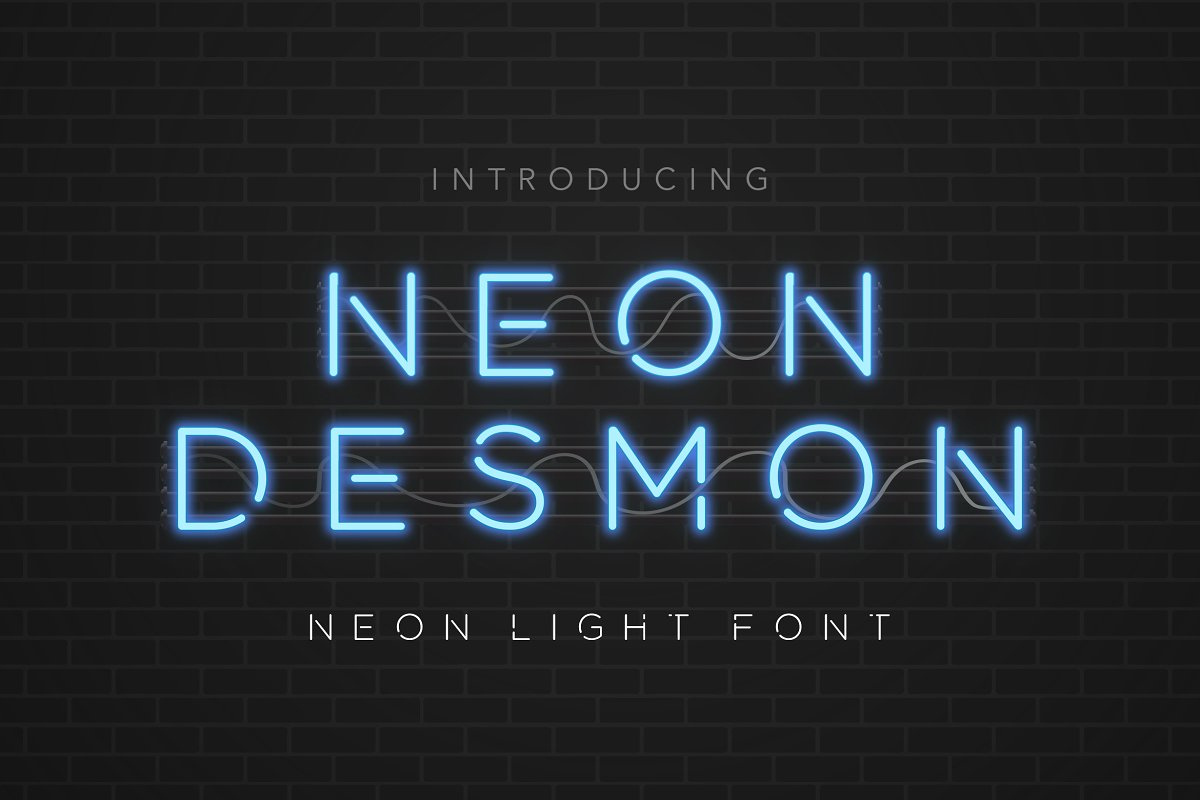
Neon Desmon - Neon Light Font
Neon Desmon - Neon Light Font is perfect for electric nightclub branding, vibrant entertainment venues, glowing signage design, neon art installations, retro-futuristic gaming platforms, and luminous urban culture campaigns. Its electrifying character makes it ideal for neon sign manufacturers, electric music festivals, glowing bar establishments, retro arcade venues, electric vehicle showrooms, and any project requiring electric brilliance with neon authenticity and luminous nightlife appeal.
This font is exciting because it captures the mesmerizing glow and electric energy of authentic neon lighting while delivering exceptional functionality for brands seeking to create unforgettable visual impact and electric atmosphere. The brilliantly crafted letterforms pulse with the same magnetic energy as real neon tubes, creating typography that literally illuminates communications and attracts audiences like moths to the hypnotic glow of electric light in urban environments.
The Neon Desmon - Neon Light Font family typically includes Light, Regular, Medium, and Bold weights with electric alternates, glowing ligatures, and luminous effects that enhance its brilliant personality. This comprehensive collection enables entertainment professionals to create electrifying brand systems that maintain neon authenticity while offering flexibility for various nightlife applications requiring both electric impact and contemporary urban entertainment positioning.